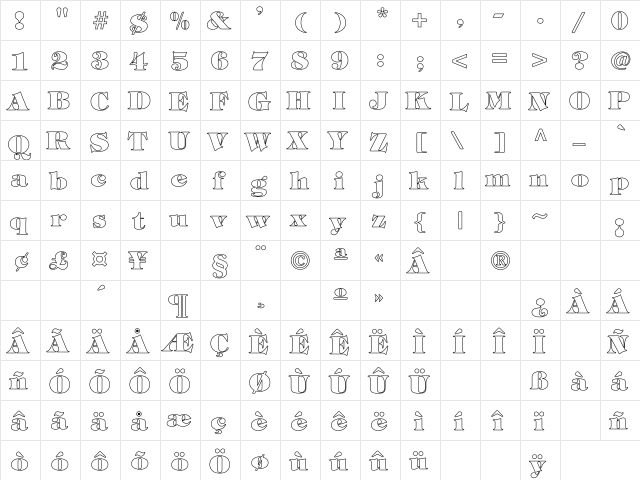
Tiffany-Heavy-Normal Hollow Regular
Design Context for Tiffany-Heavy-Normal Hollow Typeface
Tiffany-Heavy-Normal Hollow is a composed and adaptable typeface that performs quietly and consistently across a wide range of design contexts.
Pro Tip: Use Tiffany-Heavy-Normal Hollow in both headline and body roles to test its range before committing to a single application.